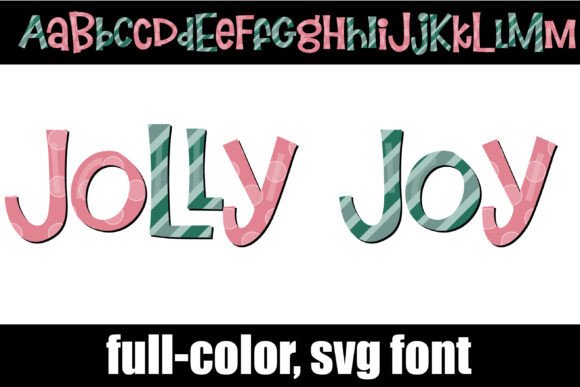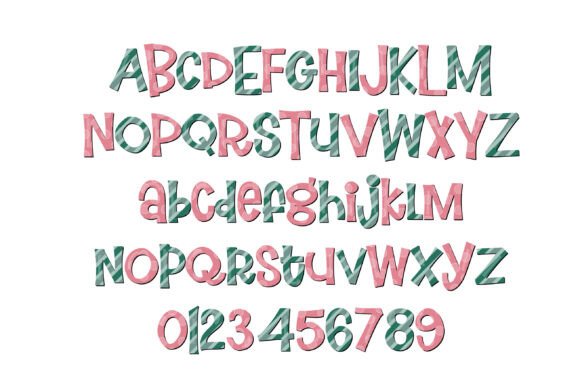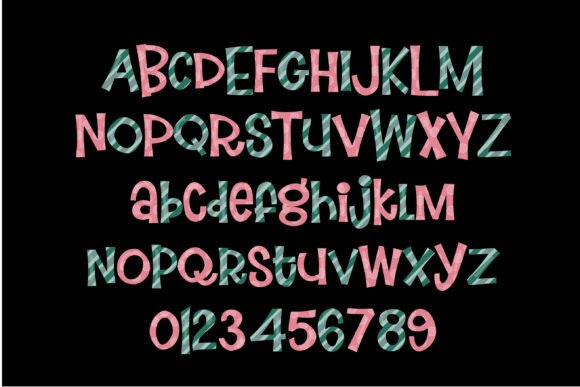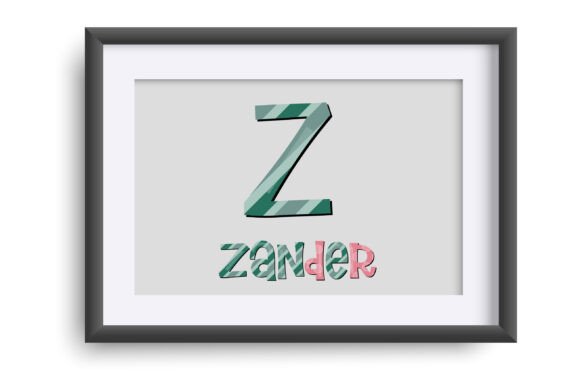
Jolly Joy Font
About the Jolly Joy Font
Welcome to the world of Jolly Joy Font, a typeface that will inspire your next great project. This full-color font features an interlocking sans serif in a pink/green holiday color palette. There is an alt version you can access through your system’s character map that contains additional colors of all the letters. This font works best for titles, displays, posters and more. Please note color fonts will show as black in non compatible programs. This font type is compatible with Silhouette Studio.